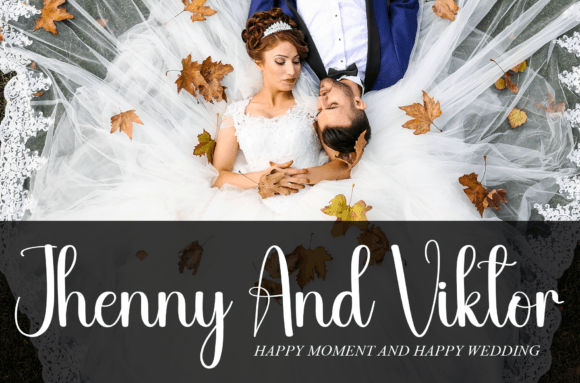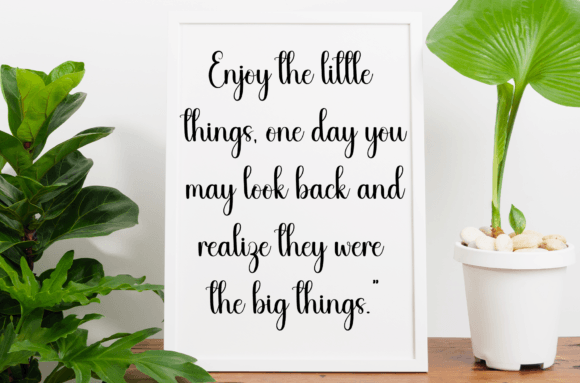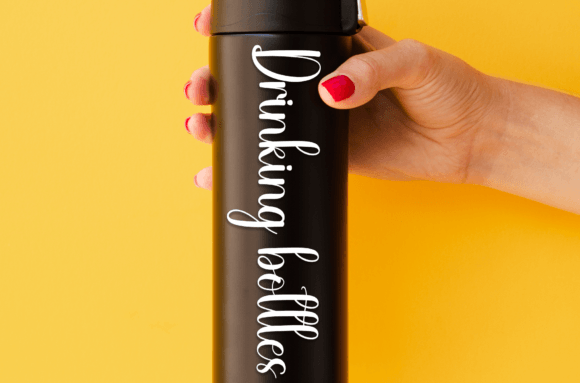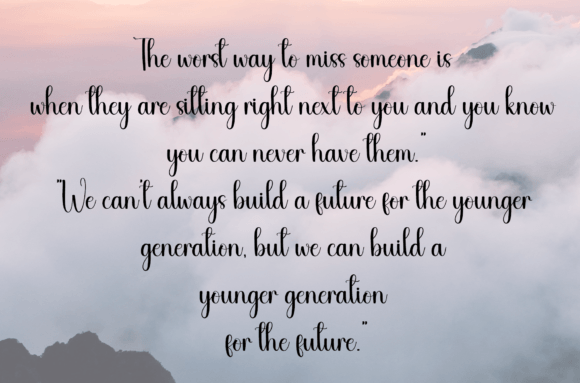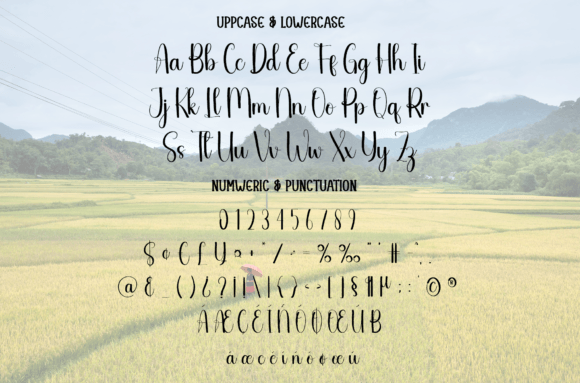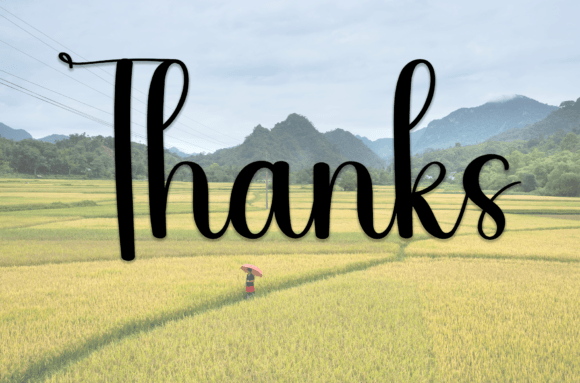
The Sweet Charm of Farming Font: A Designer’s Delight
I still remember the time I was working on a wedding invitation project, and I just couldn’t seem to find the perfect font. The client wanted something sweet, friendly, and elegant, but not too formal. I scoured the internet, tried out dozens of fonts, and still, nothing seemed quite right. That was until I stumbled upon Farming Font. ✨ It was like a breath of fresh air – the perfect blend of whimsy and sophistication.
An Honest Review of Farming Font
- ✨ Sweet and friendly vibe: Farming Font has a unique, handwritten charm that’s perfect for designs that need a personal touch.
- ✅ Versatility: This font is incredibly versatile and can be used for a wide range of projects, from wedding invitations to social media graphics.
- 💕 Emotional connection: The font’s warm and inviting personality helps create an emotional connection with your audience.
While Farming Font is an amazing font, it’s not perfect. Here are a few things to keep in mind:
- ⚠️ Limited use in very formal designs: While the font is elegant, it may not be suitable for very formal designs, such as corporate logos or government documents.
- 🤔 Some letters may be a bit quirky: As with any handwritten font, some letters may have a more unique or quirky feel. This can be a pro or a con, depending on your design needs.
- Experiment with OpenType features, such as ligatures and stylistic alternates, to add more personality to your design.
- Explore the Glyphs panel to access additional characters, such as ligatures and stylistic alternates.
The Backstory of Farming Font
Farming Font was designed with love and care by a talented type designer. The font’s creator wanted to craft a font that would bring a touch of warmth and personality to designs. With its sweet, friendly vibe and versatile personality, Farming Font has become a favorite among designers and crafters.
Q: What is Farming Font best used for?
A: Farming Font is perfect for designs that need a sweet, friendly touch, such as wedding invitations, cards, and social media graphics.
Q: Is Farming Font suitable for body text?
A: While Farming Font is beautiful, it’s best used for headlines, titles, and short paragraphs. For body text, a clearer font may be more suitable.